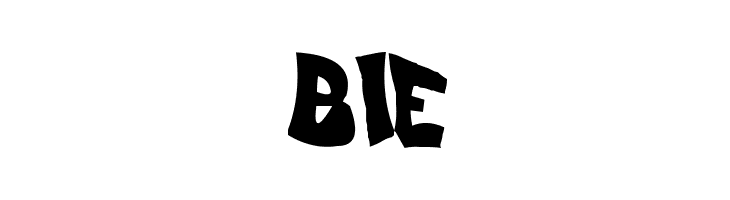
• Fleur Bleue
An elegant script font with fluid, cursive strokes and ornate uppercase letters.
• Fleurs Font
A decorative font featuring intricate floral and ornamental designs.
• FlexiBendi
A bold, playful font with rounded, slightly condensed characters and a modern style.
• FLH-Font
• Floreada St
A decorative font with letters encased in intricate floral patterns.
• Floretta
A playful, casual handwritten font with smooth, rounded edges and consistent stroke width.
• FloridaProject-PhaseOne
A bold, modern font with thick strokes and strong visual impact.
• FloridaProject-PhaseTwo
Bold, modern font with a strong, blocky style.
• FloweringBuds
A whimsical, playful font with flowing, organic lines and a handwritten feel.
• FlyingHigh
A bold, dynamic font with fluid, hand-drawn strokes and a sense of movement.